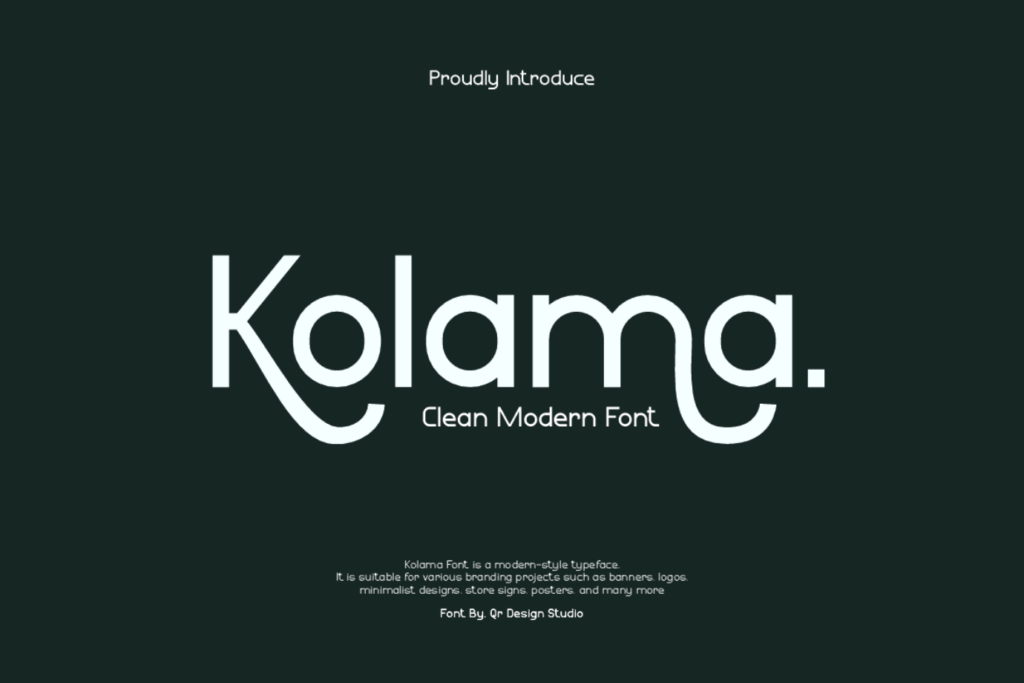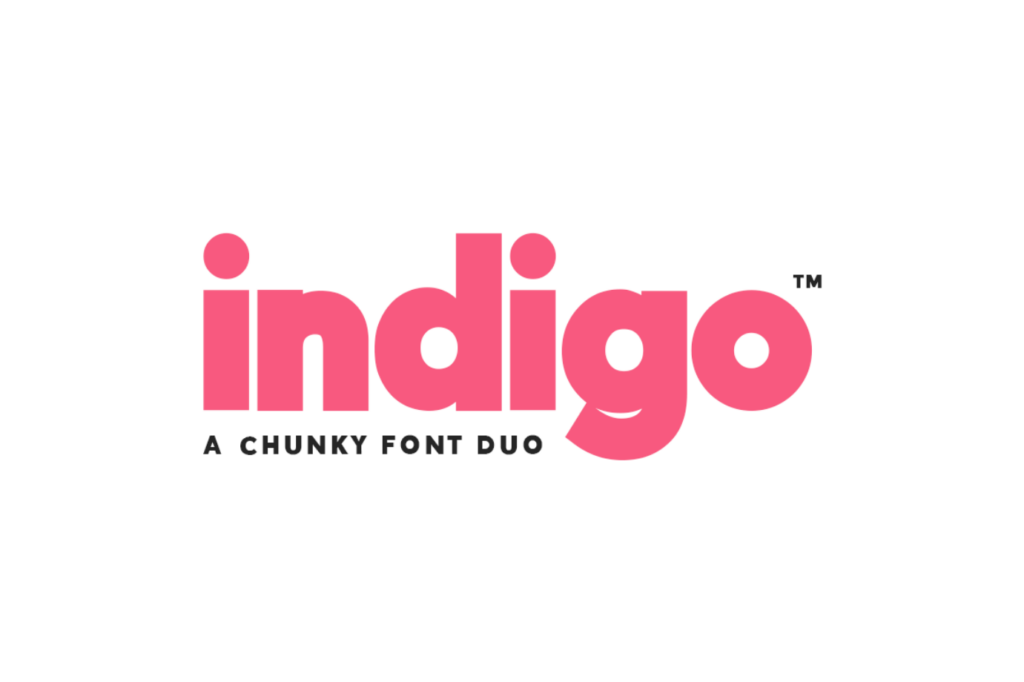
Have you ever felt the joy of seeing your words come to life in a beautifully crafted design? Choosing the right font can elevate your projects, making them not just readable but truly captivating. If you’re seeking a fresh, modern touch, minimalist sans serif fonts are the perfect solution.
These fonts resonate with the beauty of simplicity. Their clean lines and streamlined forms create a sense of calm and clarity. From crafting elegant invites to designing a sleek website, these fonts help convey your message with style. They solve the problem of cluttered designs, letting your content shine through without distractions.
Get ready to discover a curated selection of 12 stunning modern minimalist sans serif fonts. Each one is a gem that can enhance your creative projects. So, let’s dive in and find the perfect font to express your unique vision!
Minimalist Font
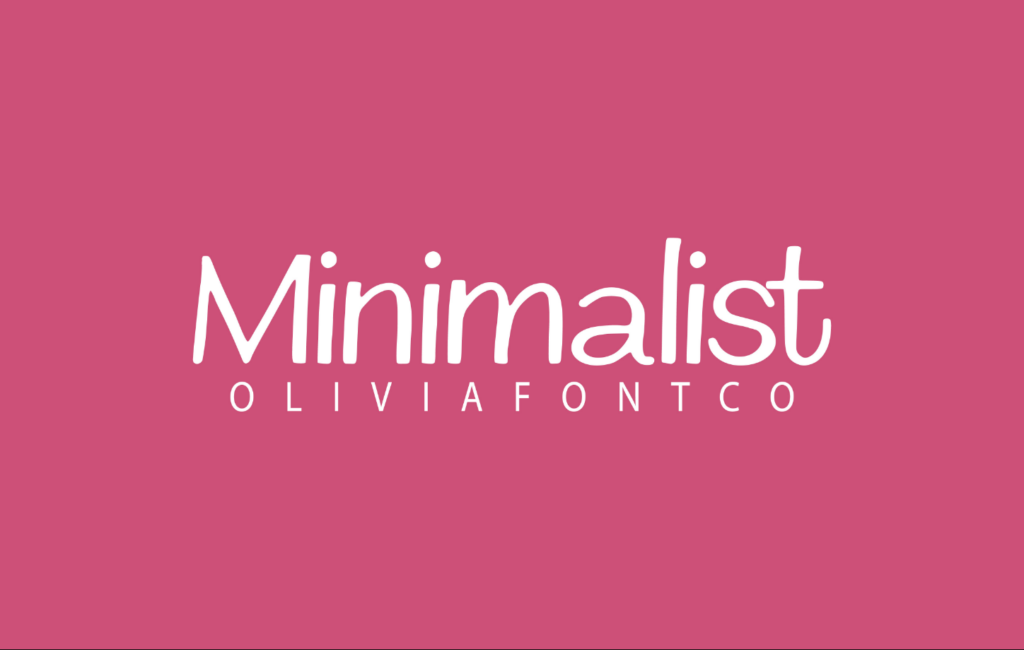
Minimalist font offers a beautiful handwritten style with a romantic flair. It shines in various creative projects, from magazine covers to elegant wedding invitations. Imagine using it for a heartfelt note on a card or an eye-catching social media post. Its legibility and charm make it a go-to option for anyone looking to elevate their design work with a touch of warmth.
Aura Font
Aura is a modern, round sans-serif font that features sleek characters and stunning ligatures. It works beautifully for branding projects, invitations, and social media graphics, adding a touch of elegance. Imagine using it for a minimalist wedding invitation, where its clean lines enhance the overall design. Enjoy the convenience of easily accessing all its glyphs and swashes, making your creative work both enjoyable and efficient.
Brooklyn Font
Brooklyn is a sleek sans serif font known for its clean lines and modern aesthetic. It shines in various projects, from branding to web design, adding a touch of sophistication. Imagine using Brooklyn for your upcoming event invitations, creating a chic and inviting atmosphere. Its versatility makes it a go-to option for anyone looking to elevate their creative work effortlessly.
Mini Bold Font
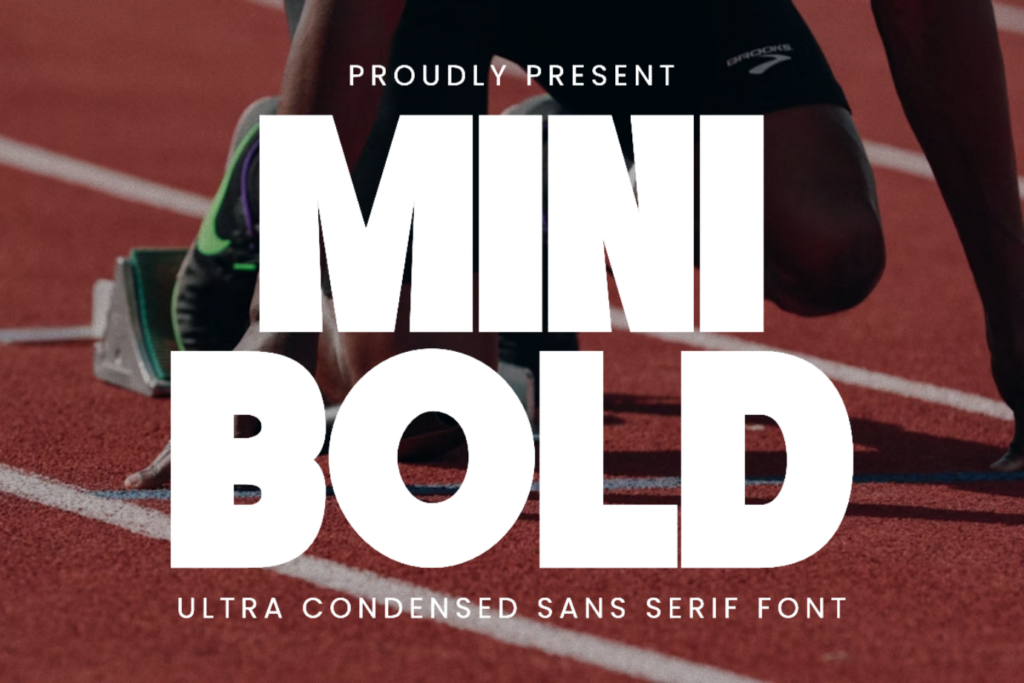
Mini Bold is an ultra-condensed sans-serif font known for its tall, impactful letterforms. It shines in projects like eye-catching posters, dynamic sports branding, and sleek logos. Imagine using it to design a striking event flyer that grabs attention from afar. This font’s modern style ensures clarity and strength, making your creative work stand out beautifully.
Defante Font
Defante is a modern sans-serif font that beautifully blends clean lines with a semi-handwritten touch. Its unique character set makes it great for designing brand identities, packaging, and stylish invitations. Imagine using Defante for a coffee shop logo, where its elegance captures the warmth of freshly brewed coffee. Its readability and distinctive personality ensure your designs convey professionalism while standing out in any creative project.
Aveton Font
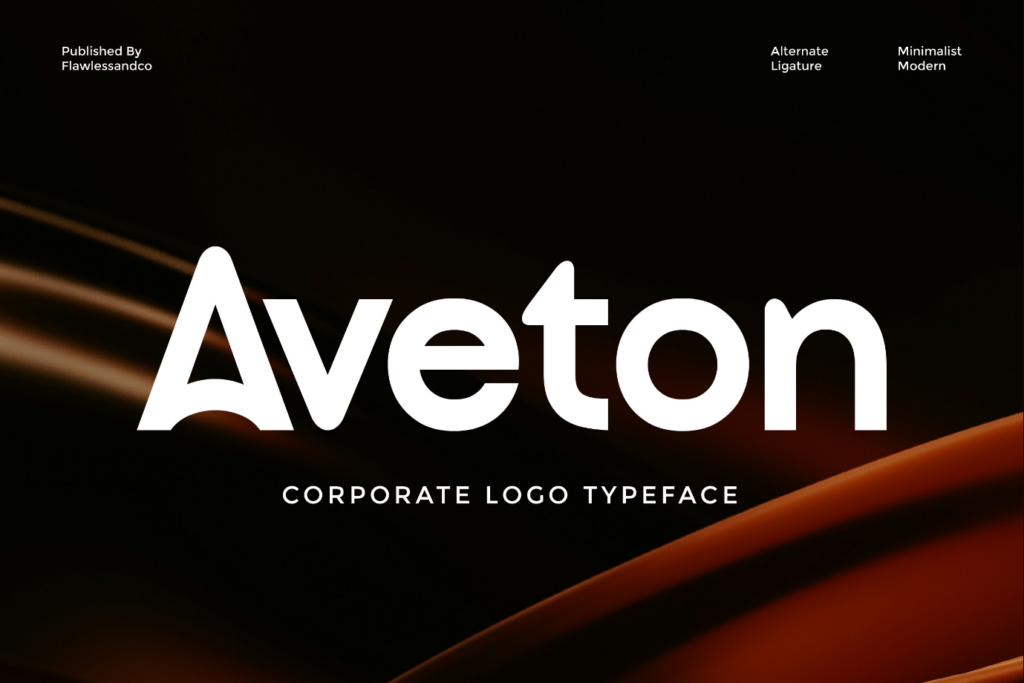
Aveton is a modern sans serif typeface that exudes professionalism with its clean lines and smooth curves. It’s ideal for creating sleek corporate branding, elegant logos, and stylish business cards. Imagine designing a minimalist website where your brand name stands out effortlessly in Aveton, capturing attention with clarity. This font streamlines your creative process, ensuring your message is communicated with confidence and sophistication.
Brunson Font
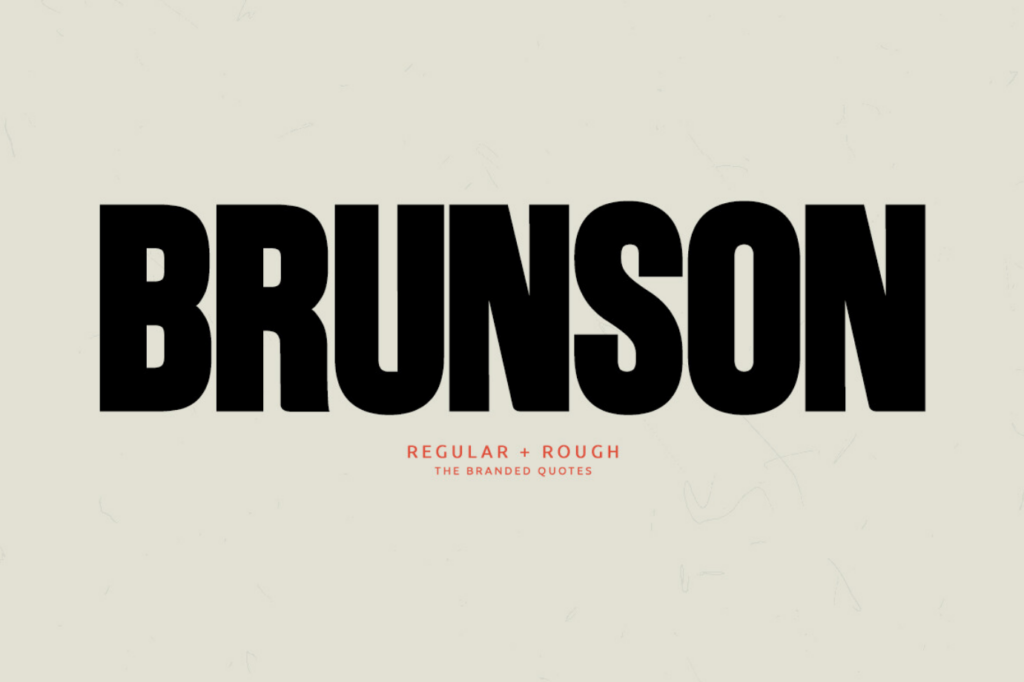
Brunson is a striking sans serif font that commands attention with its bold, heavy lines. It’s ideal for creative projects such as eye-catching headlines, vibrant movie posters, and stylish album covers. Consider using Brunson for a dynamic promotional banner that easily draws in your audience. Its tight kerning not only enhances readability but also ensures your designs make a memorable impact.
Gc Grind Font
GC Grind is a bold and modern sans serif font designed to make a statement. It excels in projects like eye-catching posters, compelling branding, and dynamic urban designs. Imagine using this font for a sports event poster that captures the energy of the game or for a sleek product label that stands out on the shelf. With easy access to all its unique characters, customizing your typography becomes a seamless part of your creative process.
Milky Font
Milky Sans Serif Display Font features a stunning blend of bold and thin elements in each letter. It’s great for creating striking branding materials, modern posters, and stylish websites. Imagine using it for a chic café menu that captures attention with its contemporary flair. Its versatility and sleek lines make it a valuable asset in any designer’s toolkit.
Chunk Font
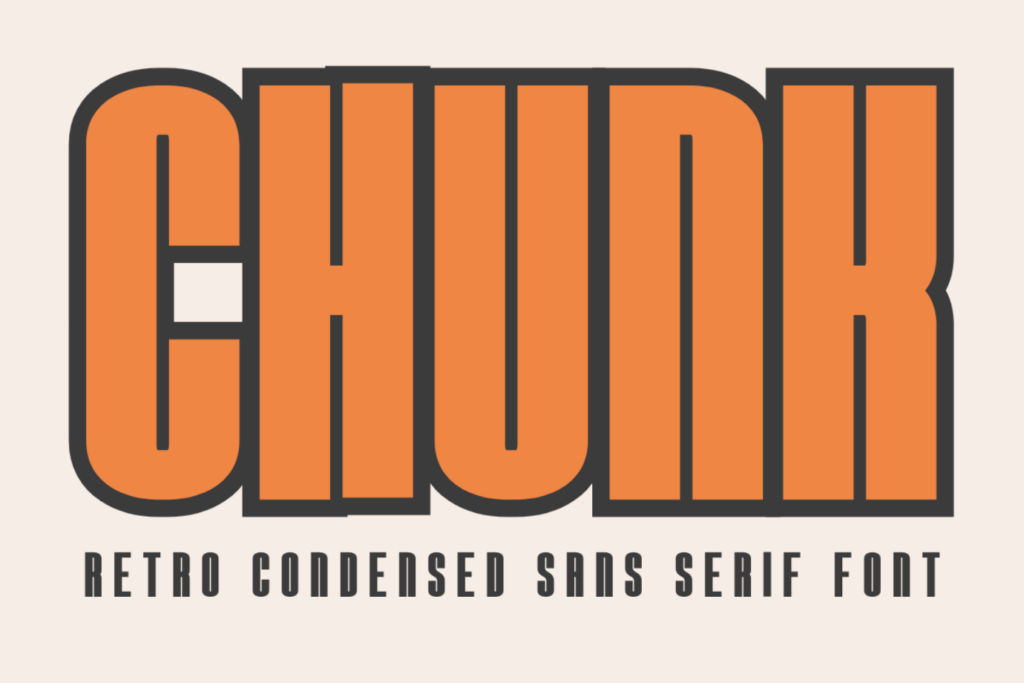
Chunk is a bold retro sans serif font that brings a playful vintage vibe to your designs. It shines in projects like eye-catching t-shirt graphics, vibrant stickers, and standout logos. Imagine creating a retro-themed poster that instantly draws attention, showcasing your unique style. Its condensed structure allows for impactful designs while keeping everything clear and fun, making it an essential tool for any creative endeavor.
Conclusion
These modern minimalist sans serif fonts with clean lines are perfect for elevating your design projects. Whether you’re crafting a sleek website, a chic poster, or branding materials, these fonts will add a touch of sophistication and clarity to your work. As you explore the potential of these fonts, consider how they can transform your ideas into beautiful visual statements. May your creativity flow freely, and may each project reflect your unique vision!